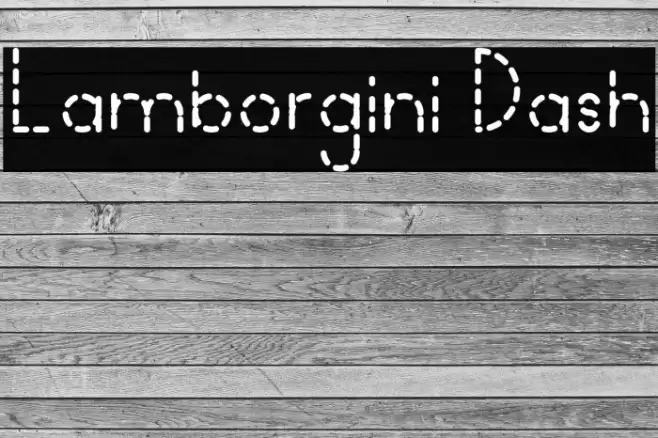
Lamborgini Dash Font
Lamborgini Dash Description
This font features a unique dashed design, where each character is composed of evenly spaced dashes, creating a playful and modern appearance. The uppercase and lowercase letters maintain a consistent style, with rounded edges and a uniform stroke width. Numbers and special characters follow the same dashed pattern, ensuring a cohesive look across all elements. The font's distinct style makes it stand out, offering a creative twist on traditional typography.
A modern, dashed font with rounded edges and uniform stroke width from Regular fonts.
- Proposed Projects: Ideal for creative projects like posters, children's books, or branding materials that require a playful and modern touch.